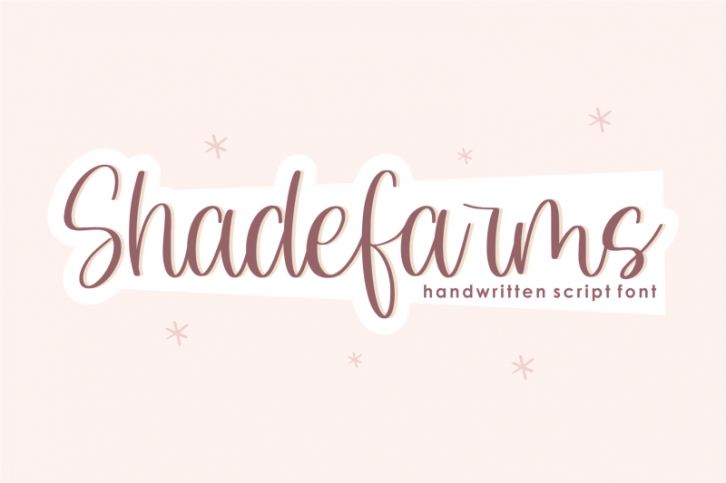
Proudly Present, Shadefarms
Shadefarms is a Handwritten Script Font
Shadefarms is perfect for product packaging, branding project, megazine, social media, wedding, or just used to express words above the background.